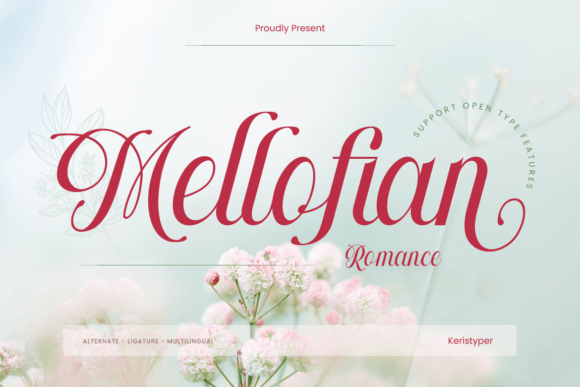
Journey into the realm of elegance and artistry with Mellofian Font, a script font born from the heart of romance and drama. A creation of Keristyper, this font exudes a timeless allure, capturing the essence of passion and storytelling.
Unleash your artistic spirit and let Mellofian Font enchant your designs. Its graceful curves and sweeping strokes add a touch of sophistication and warmth to any project. Whether you're crafting logos, social media posts, movie titles, book covers, or captivating text, Mellofian elevates your words into a visual symphony.
With its versatile personality, Mellofian effortlessly adapts to a myriad of creative endeavors. Whether you seek to craft short, impactful messages or immerse yourself in longer, flowing texts, this font remains your steadfast companion. Its delicate touch and expressive nature breathe life into every letter, making your words dance off the page.
Indulge in the allure of Mellofian Font and unlock a world of creative possibilities. Let its timeless charm infuse your projects with a sense of drama and romance. From logos that command attention to social media posts that captivate, Mellofian becomes your artistic muse, transforming ordinary text into captivating expressions of art.